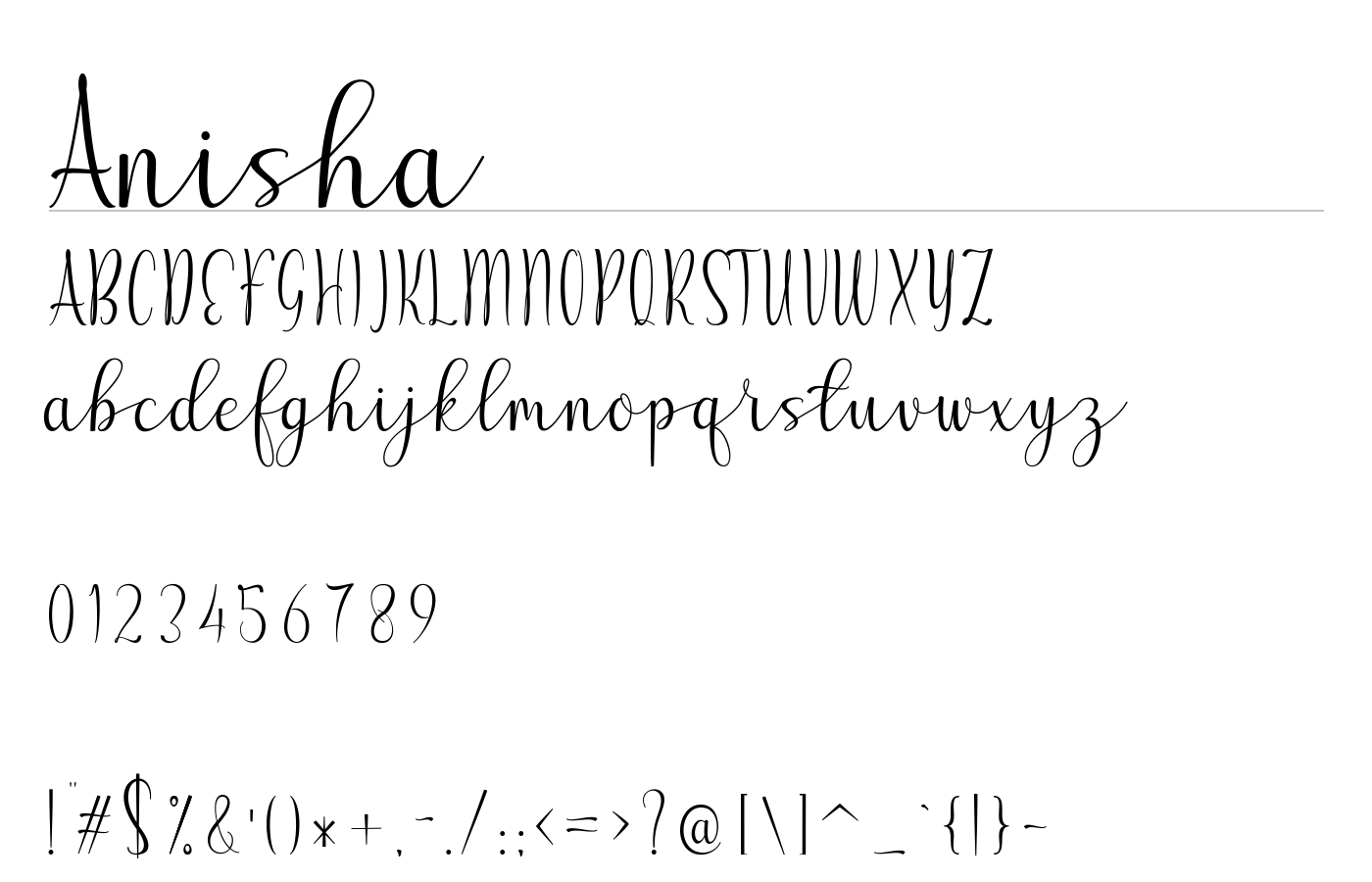
Anisha is a delicate, handwritten script font with slender strokes and a whimsical, elegant feel. Its tall, narrow letterforms and subtle variations in line weight create a graceful, airy style perfect for feminine branding, invitations, and creative headlines. This font adds a personal, charming touch while maintaining readability in decorative uses.
Anisha Font